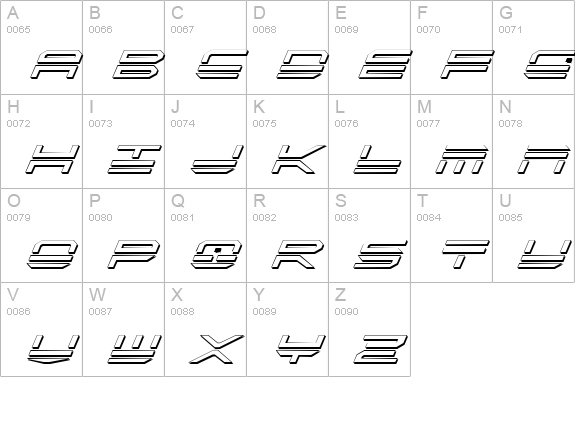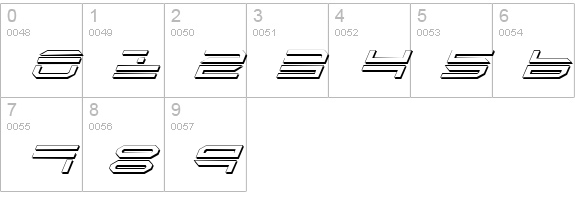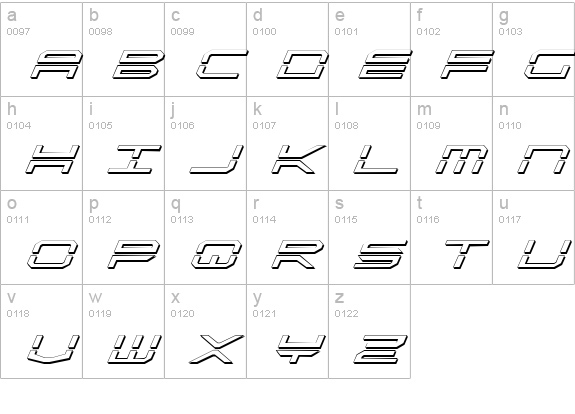
QuickStrike Shadow Italic is a distinctive, italic variant in the QuickStrike typeface family \xE2\x80\x94 well suited to design and typography projects.
QuickStrike Shadow Italic is a modern and stylish font that exudes an air of mystery and sophistication. With its unique italicized design and striking shadow effect, this font captures attention and adds a touch of elegance to any project. Perfect for logo designs, branding materials, and creative projects, QuickStrike Shadow Italic stands out with its sharp, slanted letters that create a sense of movement and dynamism. The shadow effect adds depth and dimension, giving your text a three-dimensional appearance that is both eye-catching and visually pleasing. This font is not only visually appealing but also highly versatile. Its bold and dramatic look makes it ideal for headlines and titles, while its legibility ensures that it is equally effective for body text and longer passages. Whether you want to make a bold statement or add a touch of uniqueness to your designs, QuickStrike Shadow Italic is the perfect choice. And the best part? QuickStrike Shadow Italic is available for free! You can easily download this font for free at FontsMarket.com, a trusted and reliable source for high-quality fonts. With just a few clicks, you can enhance your design projects and unleash your creativity, all without spending a dime. So why wait? Download QuickStrike Shadow Italic now and elevate your designs to new heights. Whether you're a professional designer or just starting out, this font will surely make a lasting impression and help you stand out from the crowd. Don't miss out on this opportunity to add a touch of elegance and sophistication to your projects – get QuickStrike Shadow Italic today, for free, at FontsMarket.com.